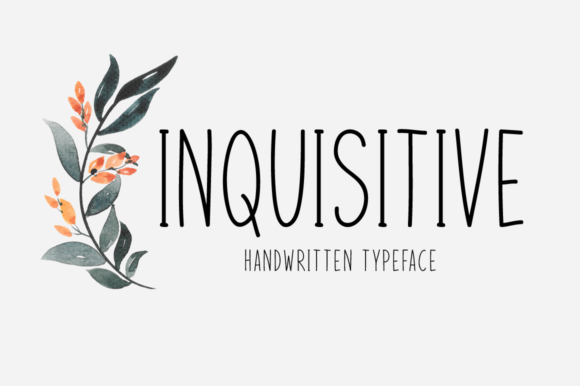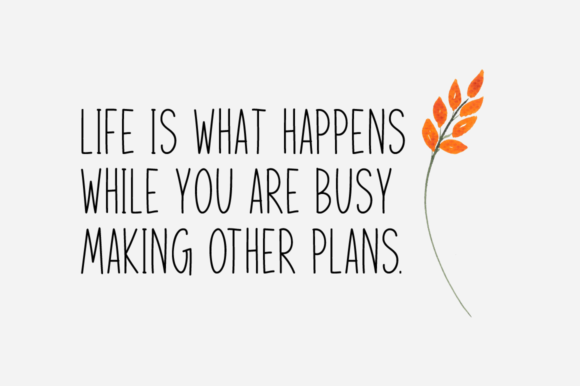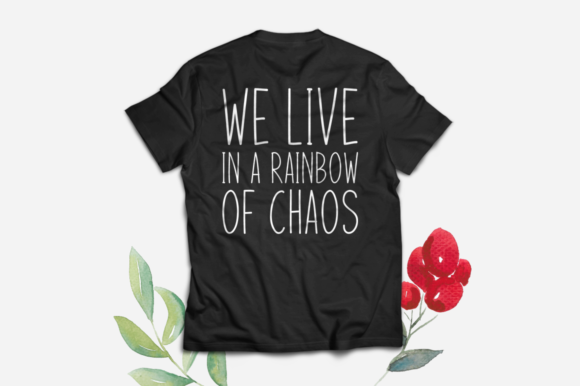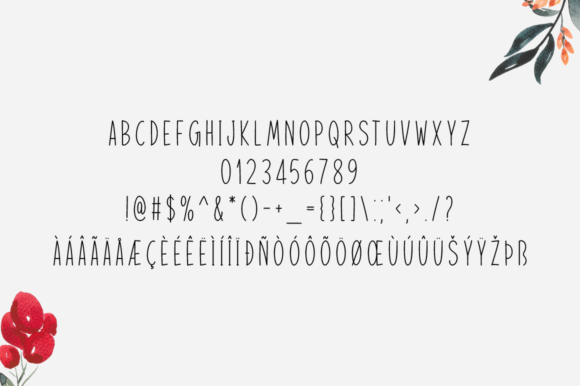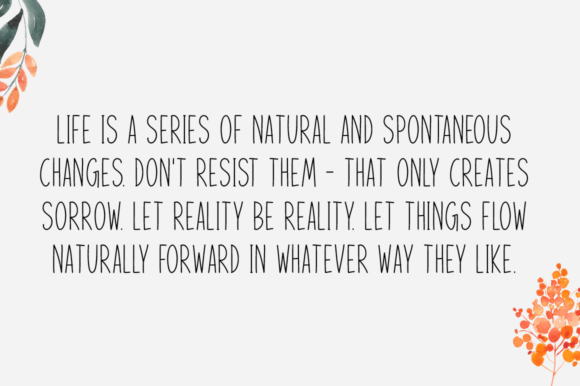
Inquisitive Font
Inquisitive is a thin and dainty handwritten font that can be used for all chalkboard quotes or teaching material! Its authentic look and feel will add a personal and realistic feel to your designs.